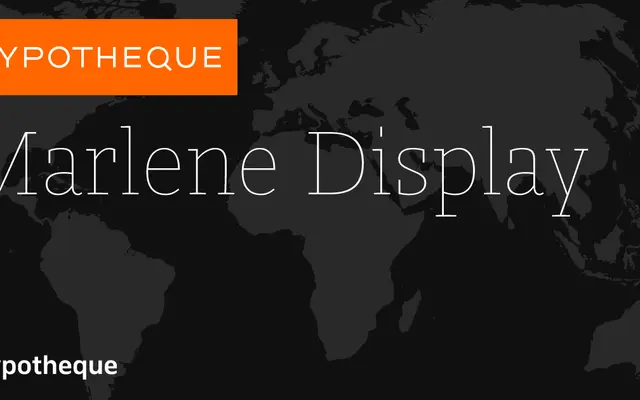
Marlene Display specimen from Typotheque
A display sans from Typotheque spanning Thin to Black in both standard and condensed widths, suited to large-scale headline settings.
Offered in four styles across two widths, the family pairs extreme weights from Thin to Black with a condensed cut for tight column work and poster settings. The range of city names used as style identifiers suggests a broad cultural or geographic framing. Latin script coverage is confirmed; no italic is offered.
The family name and weight range from Thin to Black, with both standard and condensed widths, points to a display-oriented sans designed for large-scale headline use rather than extended text.